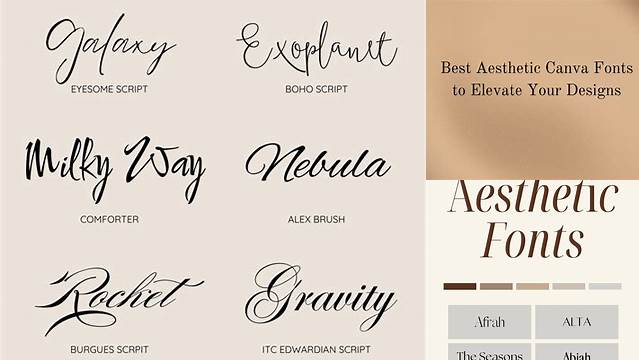
Canva Fonts: The Most Aesthetic Choices For Stunning Designs
Hey guys! Ever wondered how to make your Canva designs pop? Well, a huge part of that magic lies in the fonts you choose. Picking the right font can seriously elevate your visuals, making them more eye-catching and conveying the perfect vibe. We're diving deep into the world of most aesthetic fonts in Canva, and I'm here to guide you through some absolute gems that'll make your designs stand out. Whether you're a seasoned designer or just starting, understanding how to use these fonts effectively will transform your creative game. So, let's get started and discover the typography that will turn your Canva projects into something truly special!
Decoding the Aesthetic Font Trend
Alright, so what exactly is an "aesthetic font" anyway? It's more than just a pretty typeface; it's a font that aligns with current design trends, evokes specific emotions, and enhances the overall visual experience. These fonts often have unique characteristics that go beyond standard options. When we talk about most aesthetic fonts in Canva, we're looking for styles that fit the contemporary design landscape. This includes everything from clean, minimalist sans-serifs to elegant, flowing scripts and bold, vintage-inspired serifs. It's all about finding fonts that resonate with your audience and complement the purpose of your design. You'll notice some font styles are timeless, remaining popular year after year, while others are trendy, reflecting the latest creative waves. The beauty is the diversity, offering something for every project. Think about the tone you want to set. Do you want a classic look, or are you trying to catch the eye with something modern and edgy? Understanding this will help you pick the perfect font. For example, a modern sans-serif might be great for a tech startup, while a script font could be perfect for a wedding invitation. Remember, context is key! Experiment with different combinations to see what works best.
Many of the best most aesthetic fonts in Canva bring more than just a font to your project; they set a mood. Script fonts often bring a sense of elegance and sophistication, perfect for branding or creating a high-end feel. On the other hand, bold, blocky fonts can communicate strength and authority. Consider how the font will be used. Will it be in a headline, a paragraph, or both? Is it for a digital project or print? Each medium has its own nuances and requirements. Also, think about readability! While a font might look amazing, it’s useless if it’s hard to read. A general rule of thumb is to ensure your fonts are legible, especially for longer text blocks. As we go through the list, keep these aspects in mind. Your selection should work harmoniously with other design elements like colors, images, and layout. The goal is to achieve a cohesive and visually appealing outcome that's easy on the eyes and easy to understand, whether it’s a social media graphic, a presentation slide, or a poster. The right font choice makes a huge difference.
Top Canva Font Picks for Aesthetic Designs
Ready to dive into the font world? Here are some of the most aesthetic fonts in Canva that you can use for your designs. We'll cover everything from classic choices to modern favorites, giving you plenty of options to play with.
1. Montserrat
This is a clean and versatile sans-serif that is an absolute staple in graphic design. Montserrat is a fantastic choice if you need a clean and modern feel. It's known for its readability and friendly appearance. This font family includes various weights and styles, allowing for incredible flexibility in your designs. It is perfect for both headlines and body text. Its geometric style gives a modern and crisp feel, working particularly well in branding materials and social media graphics. The font provides excellent clarity, making it easy to read, whether used in large headers or smaller text blocks. If you are after a sleek and professional appearance, Montserrat is the way to go. Pair it with bright colors to create a vibrant look, or use it in a minimalist design to achieve a clean aesthetic.
I often recommend Montserrat to those just starting, as it's easy to work with and fits many scenarios. It works well with many different other fonts, so you can experiment with combinations. It's a dependable choice when creating promotional content or presentations. Its versatility allows you to maintain a consistent look across all your brand's visuals.
2. Playfair Display
If you're looking for a font with a touch of elegance, Playfair Display is your go-to. This serif font has a vintage, classic feel and is perfect for adding a touch of sophistication to your designs. It has a high contrast and is best used for headers and titles, making your text stand out with a touch of luxury. Playfair Display is perfect for projects needing a touch of elegance, such as invitations, posters, and branding. This font brings a historical feel to your designs without sacrificing readability. Combining it with a modern sans-serif for the body text can give a great look. This font pairs well with clean, minimalist designs, creating a balance between classic and contemporary styles. If you want to add a touch of charm and sophistication, Playfair Display is definitely one of the most aesthetic fonts in Canva for your use.
This font gives a luxurious vibe to your projects. It is excellent for headings or short titles, allowing the font's character and design to shine. You can adjust its size and spacing to achieve the best effect for your particular design. Make sure to test and tweak the font size and placement to get the best results. This font makes a statement and creates the best impression!
3. Open Sans
Open Sans is another go-to, known for its neutrality and clean lines. It's a very versatile sans-serif, suitable for a variety of uses, from body text to headlines. Its open and friendly appearance is ideal for designs that need to be easily readable, like websites, brochures, and presentations. The font is very adaptable and comes in several weights and styles, allowing you to adjust its appearance to suit your project. Open Sans is designed for digital readability, ensuring a smooth and enjoyable reading experience on screen. The use of Open Sans is one of the most aesthetic fonts in Canva to help establish a cohesive brand identity across multiple platforms. This ensures consistency and recognition. Its balance and clarity help it seamlessly blend into any project. This makes it ideal for any design purpose. It's a safe choice, working well in almost every situation.
Its versatility also extends to how it pairs with other fonts. Open Sans can pair with bold fonts for a striking contrast, or it can work well with a script font for a touch of elegance. If you're looking for a straightforward and readable font, it's perfect. It's a workhorse font that won't let you down.
4. Lato
Lato is another classic, friendly sans-serif font. It is popular for its readability and slightly rounded letterforms. This font is designed to be both readable and aesthetically pleasing, making it a great choice for both body text and headlines. Its semi-rounded details give it a warm, welcoming look. If you want to give your designs a modern and friendly vibe, Lato is a strong choice. It is designed to work well on screens and in print. It can be used for a variety of purposes, including creating websites, brochures, and social media graphics. This font stands out for its versatility and easy-to-read characteristics. Its simple design makes it accessible to the general public. If you need a clean and modern font that's easy on the eyes, Lato is the perfect fit. It's an excellent choice. It's the type of font that works well for a wide range of projects. It is a great option. The font is widely supported and a good choice when working across multiple platforms.
Lato provides a clean and professional appearance, making it a popular choice among designers. Its balanced design and clear letterforms make it a perfect font for a wide variety of applications. This is another of the most aesthetic fonts in Canva that will do wonders for your projects.
5. Bebas Neue
Bebas Neue is a tall, narrow sans-serif that looks great in headlines and display text. It has a bold and modern appearance, making it perfect for grabbing attention. If you want to make a strong statement, Bebas Neue is perfect. Its condensed form makes it a great choice for designs with limited space. This font is perfect for bold headings and impactful text, making it a popular choice for brands aiming for a confident and contemporary look. It works great for posters, social media posts, and other visual content that needs to attract attention. This font is best for display purposes. Make sure the context matches the bold statement you are making. Since it is tall and narrow, it works well in headlines. Be sure to play around with the size and spacing to get the right look. Its strong presence and clean lines will make your headlines stand out.
Bebas Neue is great for making a powerful visual impact. If you're looking to make your text stand out, this font is a must-try! It is the best of the most aesthetic fonts in Canva for making your titles pop.
6. Great Vibes
Great Vibes is an elegant script font that provides a graceful and flowing appearance. It adds a touch of sophistication and personality to your designs. If you are looking to add a touch of charm and elegance, Great Vibes is a perfect choice. It is very popular for wedding invitations, quotes, and branding. This font is excellent for designs needing a touch of personalization. The script font gives a warm and inviting feel, perfect for projects needing a more human touch. This is one of the most aesthetic fonts in Canva that can create a luxurious and beautiful appeal. This font looks great when used in headlines or for short phrases. It’s not ideal for long bodies of text. Great Vibes adds a touch of artistry to any project.
Remember to consider the context and purpose of your design when selecting this font. Make sure it fits well with other design elements and the overall brand aesthetic. The best thing to do is experiment and play around with it. This font can create a lasting impression. It will make your designs memorable and charming.
Combining Fonts for Stunning Results
Now that we’ve covered some great fonts, let's discuss combining them. Choosing the right font pairing can make your designs really stand out. Combining fonts strategically can boost the impact and overall look of your designs. One of the key principles is contrast. You want to pair fonts that complement each other but also provide enough distinction to make them distinct. This can create visual interest, making the design look more engaging. A popular combination is pairing a serif font with a sans-serif font. The serif font provides a touch of elegance, and the sans-serif font brings a modern look. You can also combine fonts within the same style. To build a cohesive design, think about the overall message and feel you want to create. The goal is to create a harmonious and aesthetically pleasing look.
Another important aspect is the weight of the font. You can balance a bold headline with a lighter body text to create visual interest. Make sure that the fonts complement each other by choosing fonts that have similar design characteristics. Avoid combining too many different styles, as this can make the design look disorganized. Aim for balance and harmony. Experiment with different combinations and find what looks best for your design. Use contrasting font sizes to create a visual hierarchy. This can help direct the user's eye and highlight key information. Think about the context in which your design will be seen. The goal is to find a perfect balance between visual appeal and functionality.
Choosing the right font isn't just about picking what looks pretty; it is about aligning your font choice with your design’s goals and audience. You need to think about the project's purpose, its message, and who you're trying to reach. First, consider your brand identity! Your font should reflect the brand's personality and values. If you're a playful brand, you might pick a more friendly and informal font. If you are more professional, you would choose a classic font. Next, ensure readability! If your font is hard to read, it's not serving its purpose, no matter how amazing it looks. Always test your fonts and make sure they work well in different sizes and contexts. Also, think about the overall design. Consider how your font will look with other elements. This includes colors, images, and spacing. The fonts should work harmoniously. If your audience is more formal, select a font with a classic look. When in doubt, look for inspiration! Browse other designs, websites, and branding materials. The best way is to get creative and experiment with different combinations. Remember, the goal is to create a cohesive and visually appealing design that grabs attention. These are the best choices in the most aesthetic fonts in Canva. Your designs will surely improve with these tips!
Conclusion: Unleash Your Creative Typography!
So there you have it, guys! We've journeyed through some of the most aesthetic fonts in Canva, explored the importance of font pairings, and covered some essential tips for making the right choices. Choosing the right font makes a difference in your projects. The right fonts will make your designs beautiful. Now, it's time to take what you've learned and start playing around with these awesome fonts. Remember to experiment, get creative, and find the perfect styles for your unique projects. Don’t be afraid to try out different combinations and see what works best. Typography is a powerful tool. It lets you express yourself and bring your creative visions to life. Have fun creating and enjoy the process! Happy designing!